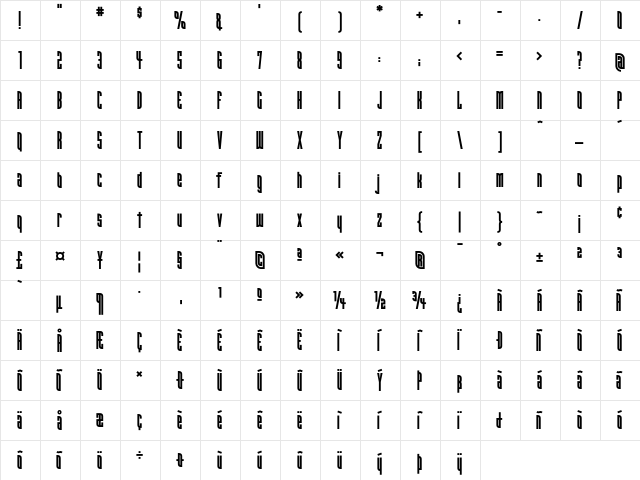
NarrowbandPrimeICG Bold Font Preview
Design Context for NarrowbandPrimeICG Typeface
NarrowbandPrimeICG takes a measured approach to typography — its balanced proportions and neutral character make it a reliable workhorse for both digital and print work. The heavy weight commands attention and anchors typographic hierarchies. The condensed width makes it efficient for tight spaces without sacrificing legibility.
Pro Tip: Pair NarrowbandPrimeICG with a font of contrasting weight or personality to build a more expressive typographic hierarchy.